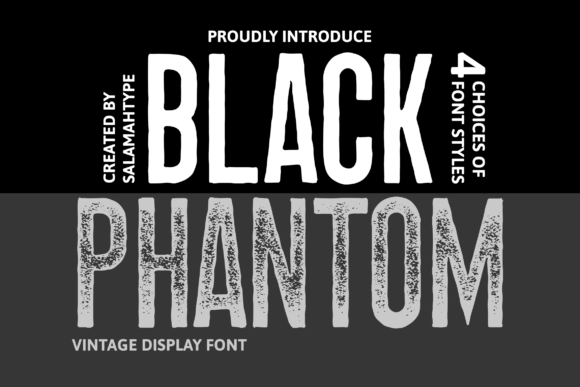
Introducing the captivating and versatile Black Phantom Font, a must-have for anyone seeking the best fonts for cool numbers! Created by salamahtype, this display sans font is the ultimate solution to elevate your branding projects, logos, labels, and more.
With its exceptional design and attention to detail, Black Phantom Font offers a modern and edgy look that will instantly captivate your audience. This font family includes four styles, including the clean and textured options, allowing you to choose the perfect fit for your creative needs.
What sets Black Phantom Font apart from the rest is its ability to add a touch of uniqueness and meaning to your designs. The inclusion of textured options, such as the rust core, adds depth and character to your artwork, making it truly stand out from the crowd.
Imagine the impact of a logo or label that exudes coolness and uniqueness. With Black Phantom Font, you can achieve just that. Whether you're aiming for a vintage-inspired design or a contemporary look, this font has the versatility to adapt to any style or concept you have in mind.
But it's not just about aesthetics. Black Phantom Font is designed with functionality in mind. Its legibility and clarity ensure that your message is conveyed effortlessly, making it perfect for headlines, titles, and any text that needs to make a bold statement.
When you choose Black Phantom Font, you're not just getting a font – you're unlocking a world of possibilities for your creative projects. Its captivating appeal will draw attention, leaving a lasting impression on your audience. From social media graphics to product packaging, let your imagination run wild with the endless opportunities this font provides.